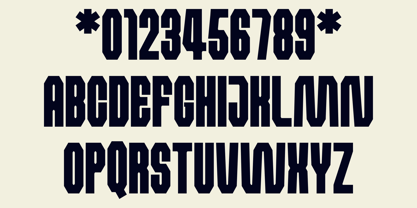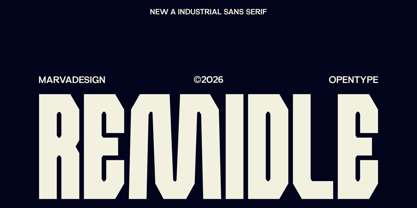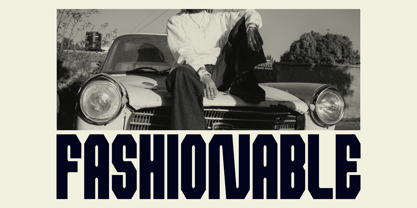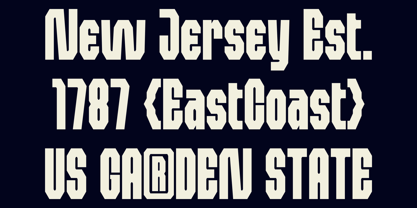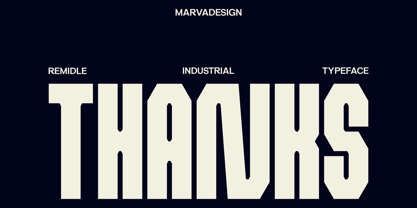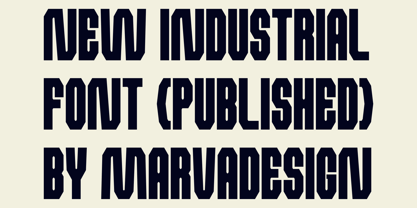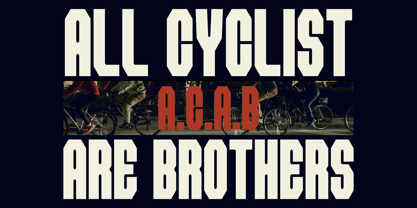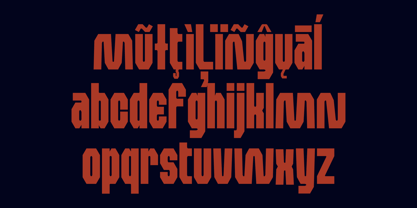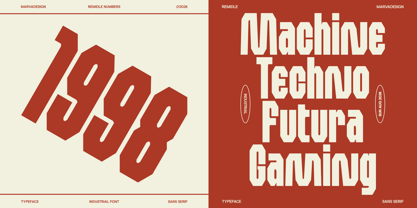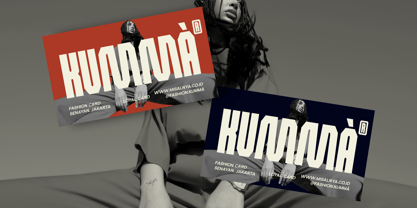
Remidle
The Remidle Font Family was designed by Febrie Setiawan and published by Marvadesign. Remidle contains 1 styles. More about this family
Remidle is a bold industrial display typeface designed with a distinctive condensed structure, strong vertical proportions, and a highly recognizable geometric character. Its letterforms combine narrow, elongated shapes with sharp cuts, squared terminals, and subtle curves, creating a visual language that feels mechanical, architectural, and distinctly contemporary. The compact construction allows Remidle to maintain a powerful presence even in limited spaces, while its carefully defined proportions provide excellent visual impact at large sizes.
Remidle is ideally suited for branding, posters, editorial headlines, fashion graphics, music artwork, automotive projects, industrial visual identities, packaging, signage, sports graphics, and various other applications where typography serves as the primary visual element. Its narrow width makes it effective for stacked compositions, large-scale headlines, logos, and promotional layouts, while its unique construction lends a strong graphic character to even the simplest words.